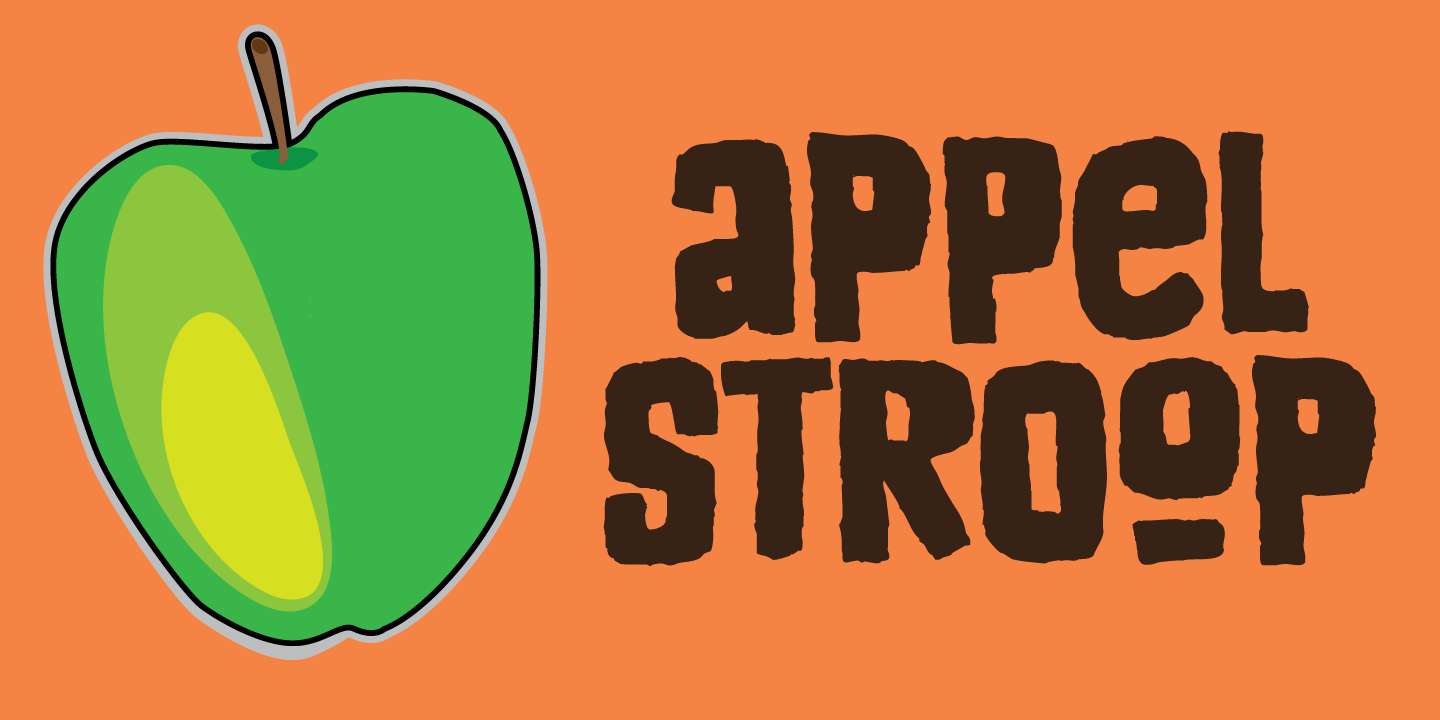
The Appelstroop Font Free Download is ideal for children’s books, product packaging, toy designs, and playful branding, offering a quirky, hand-drawn aesthetic.
This font is exciting because its chunky, slightly eroded design with apple-shaped symbols adds a whimsical, fun vibe perfect for creative projects.
The Appelstroop family includes Regular and Italic styles, providing versatile options for dynamic typography.
Capture playful charm with the Appelstroop Font Free Download, a bold, hand-drawn typeface designed by David Kerkhoff and published by Hanoded in 2017. Named after Dutch “apple syrup,” Appelstroop features a mostly all-caps design with select lowercase glyphs and unique apple symbols, ideal for creating eye-catching headlines or logos for kids’ products or food-related designs. With 145+ glyphs, it supports multiple formats (OTF, TTF, WOFF) for seamless use in print and digital platforms. The font’s slightly distressed texture adds an organic, artistic feel. As 2025 design trends favor bold, playful typography, downloading Appelstroop Font Free Download keeps your work vibrant and engaging. Test it today at dafont.com to explore its potential, and consider purchasing the full version at   for commercial use.